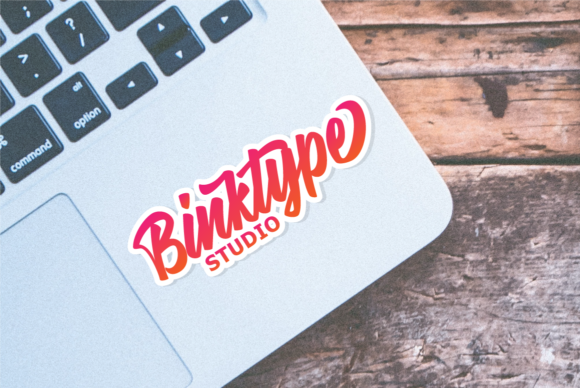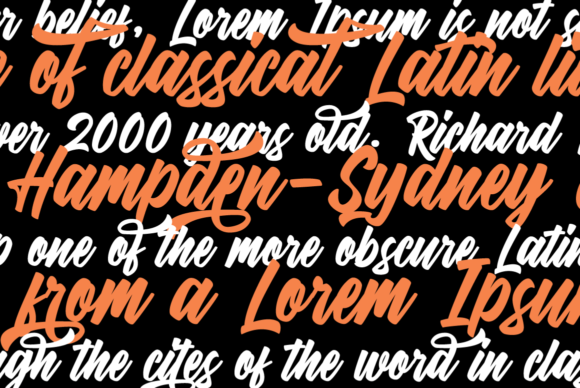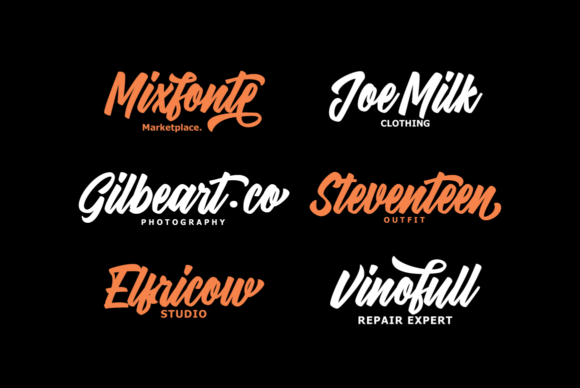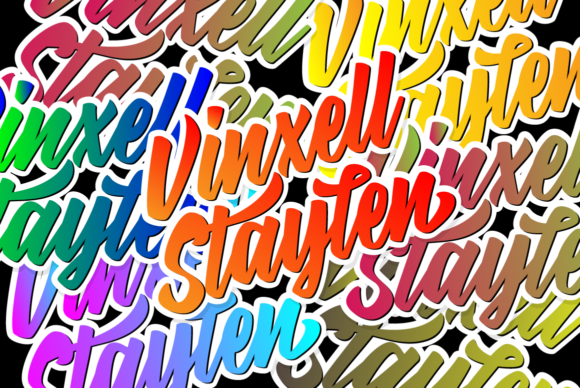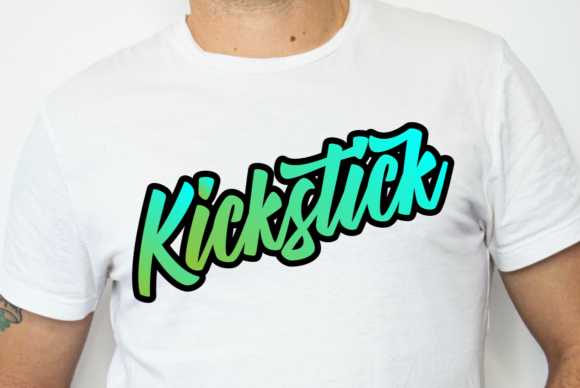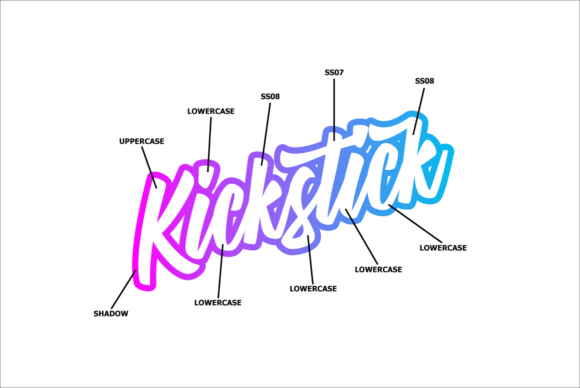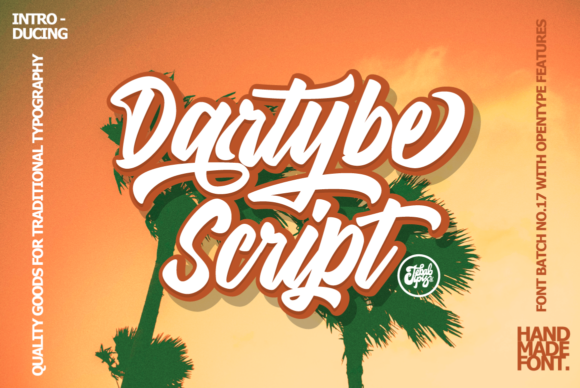
Dartybe Font: Elevate Your Designs with a Retro Twist
Are you on the hunt for a font that adds a touch of nostalgia and sophistication to your designs? Look no further than Dartybe, a stunning, bold, and retro-styled handwritten font that’s perfect for headlines, logotypes, and more. In this article, we’ll dive into the world of Dartybe, exploring its features, benefits, and uses, and why it’s a must-have for designers and crafters alike.
The Dartybe Difference: A Unique Blend of Style and Functionality
Dartybe is more than just a font – it’s an experience. With its strong, confident, and dynamic feel, this gorgeous font is designed to give your designs a stylish touch that’s sure to turn heads. Whether you’re working on a logo, headline, or social media graphic, Dartybe’s retro charm and nostalgic character are sure to leave a lasting impression.
So, what sets Dartybe apart from other fonts? For starters, its PUA (Private Use Area) encoding makes it incredibly easy to access all the glyphs and swashes, allowing you to experiment with different combinations and create truly unique designs. This means you can focus on getting creative, rather than getting bogged down in complicated font mechanics.
Key Features of Dartybe Font
- Retro-styled handwritten font: Dartybe boasts a distinctive, hand-crafted look that’s reminiscent of a bygone era.
- Bold and confident feel: This font exudes strength and dynamism, making it perfect for headlines and logotypes that need to make a statement.
- PUA encoded: With PUA encoding, you can easily access all glyphs and swashes, giving you maximum creative flexibility.
- Nostalgic character: Dartybe’s unique blend of vintage charm and modern style makes it perfect for designs that need a touch of nostalgia.
Who Can Benefit from Dartybe Font?
Dartybe is a versatile font that can be used by a wide range of designers and crafters, including:
- Graphic designers: Whether you’re working on a logo, brochure, or social media graphic, Dartybe is a great choice for adding a touch of style and sophistication.
- Logotype designers: With its bold, confident feel, Dartybe is perfect for creating eye-catching logotypes that make a lasting impression.
- Crafters and scrapbookers: Dartybe’s nostalgic character and retro charm make it a great choice for crafters and scrapbookers looking to add a touch of vintage flair to their projects.
- Digital artists: Dartybe’s unique blend of style and functionality makes it a great choice for digital artists looking to add some personality to their work.
Tips for Using Dartybe Font
To get the most out of Dartybe, here are a few tips to keep in mind:
- Experiment with different sizes and colors: Dartybe looks great in a variety of sizes and colors, so don’t be afraid to experiment and find the perfect combination for your design.
- Pair with complementary fonts: Dartybe pairs well with a range of fonts, so try pairing it with some complementary fonts to create a unique and eye-catching design.
- Use swashes and glyphs to add personality: With its PUA encoding, Dartybe makes it easy to add swashes and glyphs to your design. Use these to add a touch of personality and whimsy to your work.
In conclusion, Dartybe is a truly unique and versatile font that’s perfect for designers and crafters looking to add a touch of style and sophistication to their work. With its bold, confident feel, nostalgic character, and PUA encoding, Dartybe is a must-have for anyone looking to elevate their designs and take them to the next level. So why wait? Download Dartybe today and start creating stunning designs that are sure to leave a lasting impression!